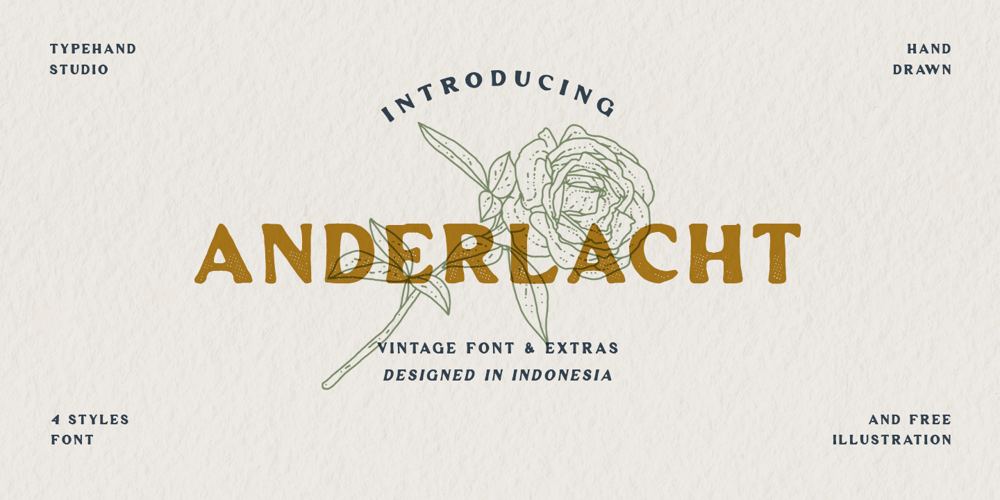
Anderlacht
Anderlacht font
Anderlacht Font Family was designed by Yanuar Adi and published by Typehand Studio. Anderlacht contains 4 styles and family package options. Anderlacht is a vintage serif font with a stamp texture that is perfect for quotes, logos, designs, digital art and more. Also accompanied by several illustrations that make it possible to make designs very easily, and there is also a multilingual language. Anderlacht Regular & Italic Anderlacht Stamp Regular & Italic 12 illustrations in lines, solids and textures PUA Encoded Multilingual Language Support